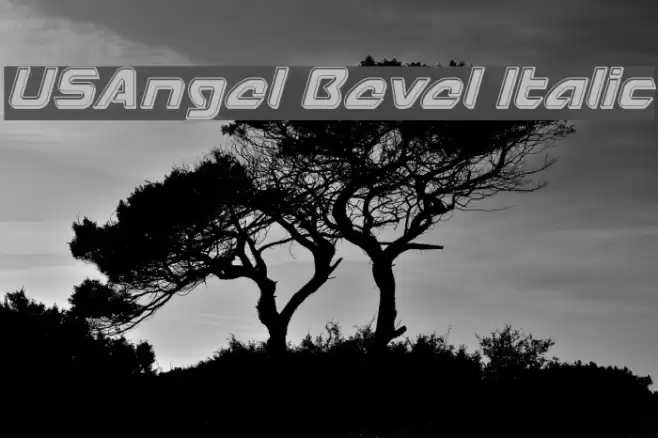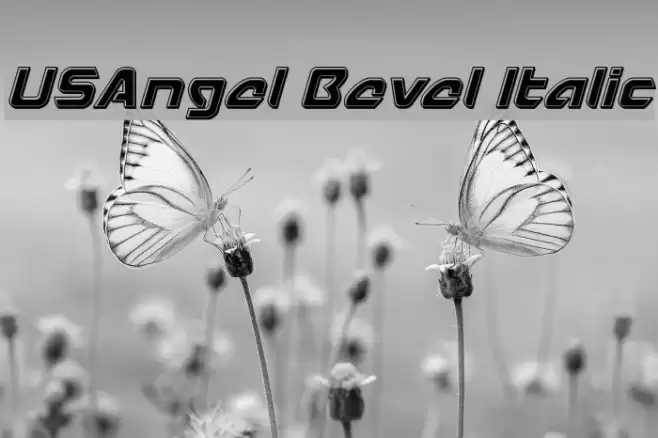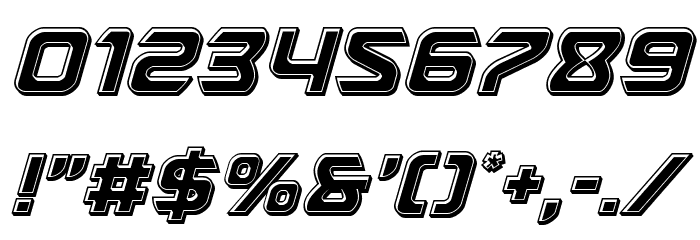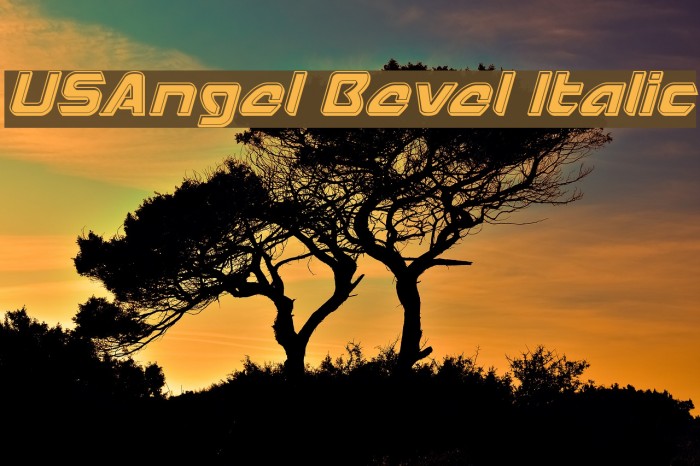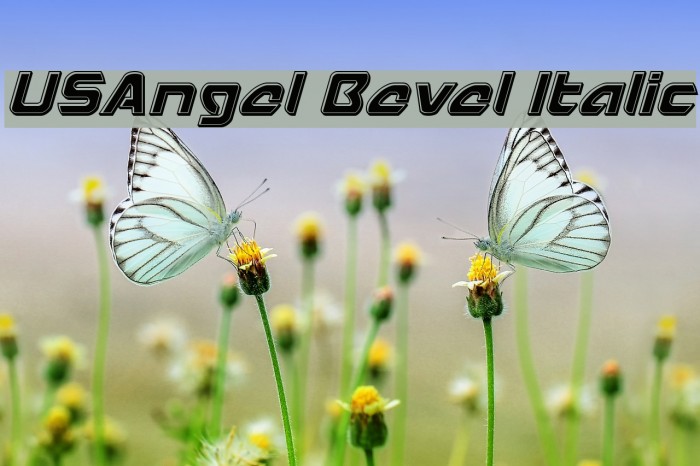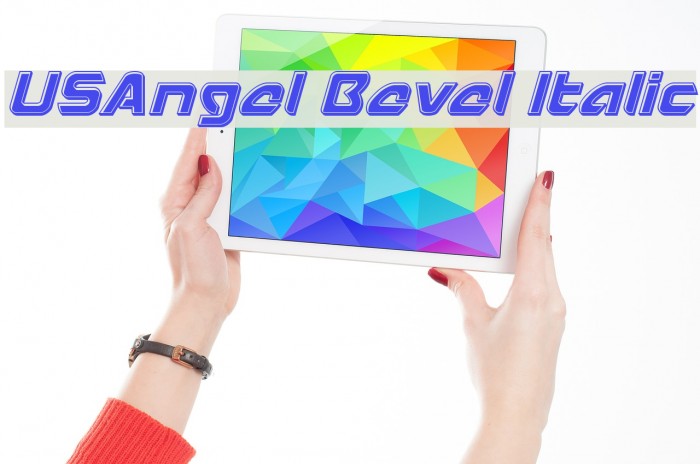
USAngel Bevel Italic Font
USAngel Bevel Italic Description
This font features a bold, italicized style with a distinct beveled effect, giving it a three-dimensional appearance. The characters are designed with sharp angles and clean lines, creating a futuristic and dynamic look. The uppercase and lowercase letters maintain a consistent style, with the lowercase letters slightly more rounded. Numbers and special characters follow the same design principles, ensuring uniformity across all glyphs. The font's unique beveled edges and italic slant make it stand out, suitable for projects that require a modern and eye-catching typeface.
A bold, italicized font with a beveled, three-dimensional effect from Sci-fi fonts.
- Proposed Projects: Ideal for futuristic designs, tech-related branding, video game titles, and dynamic posters.